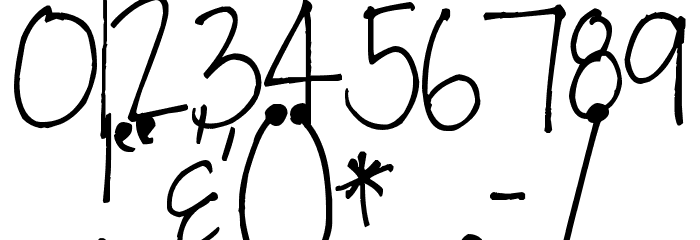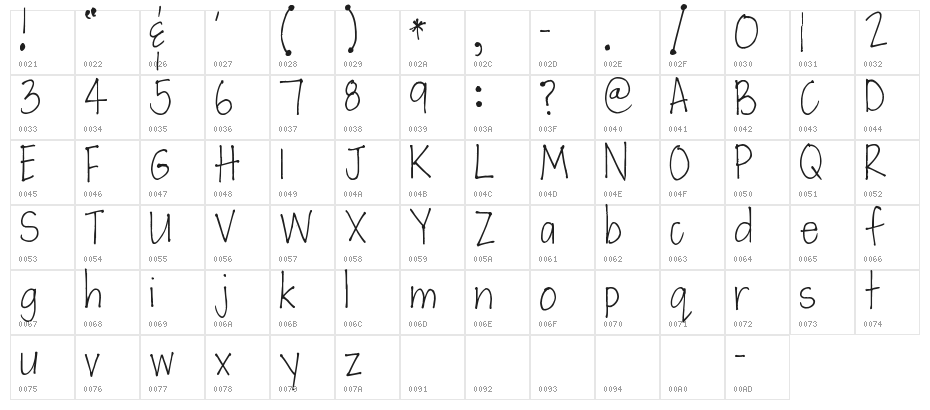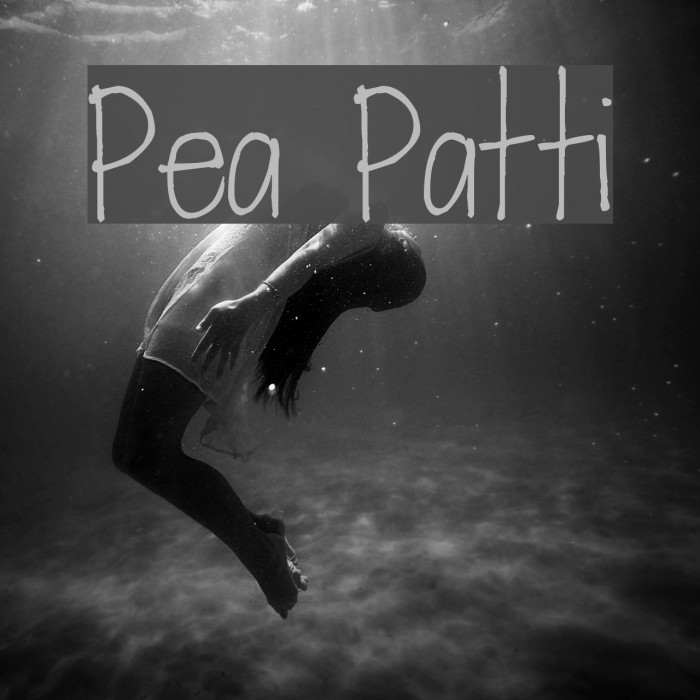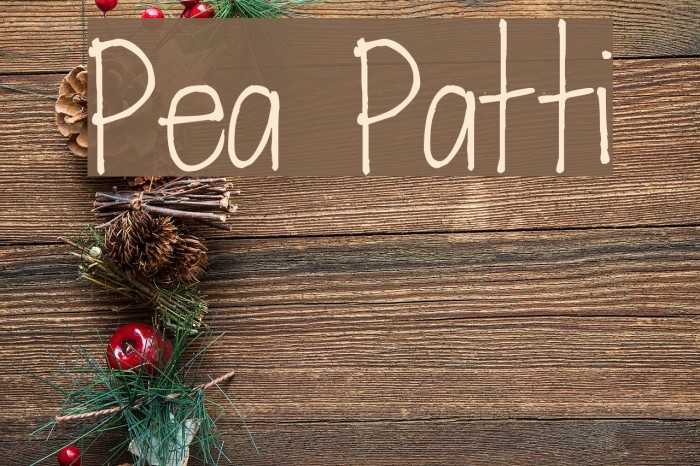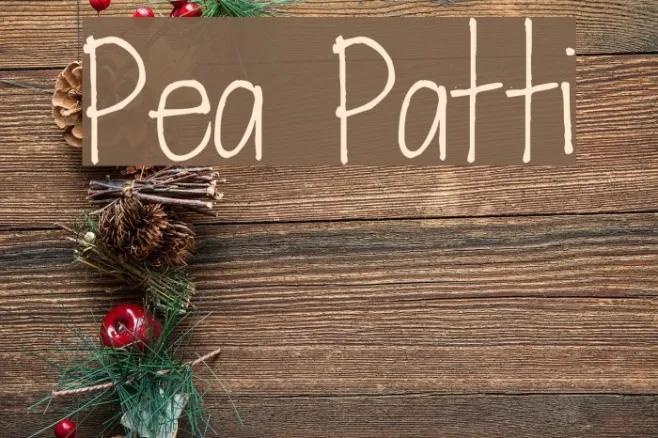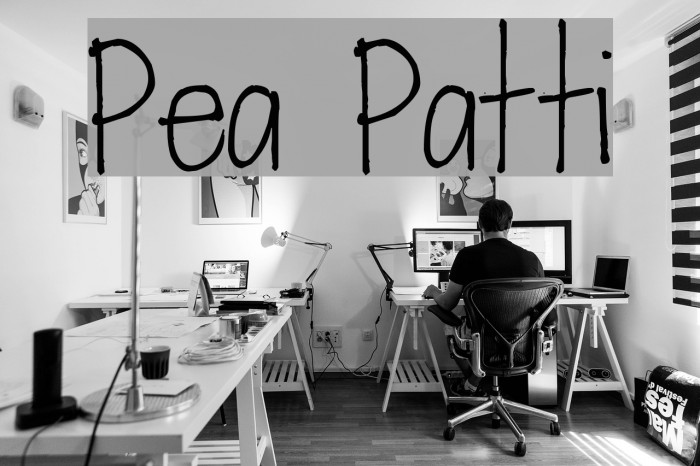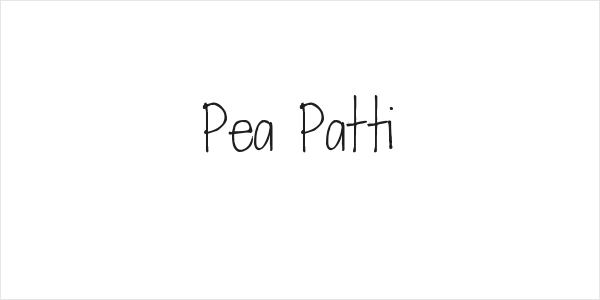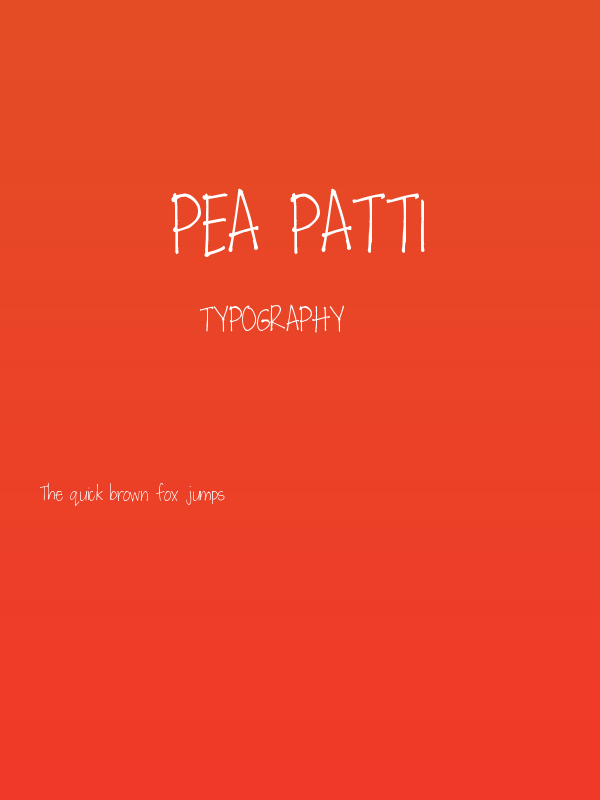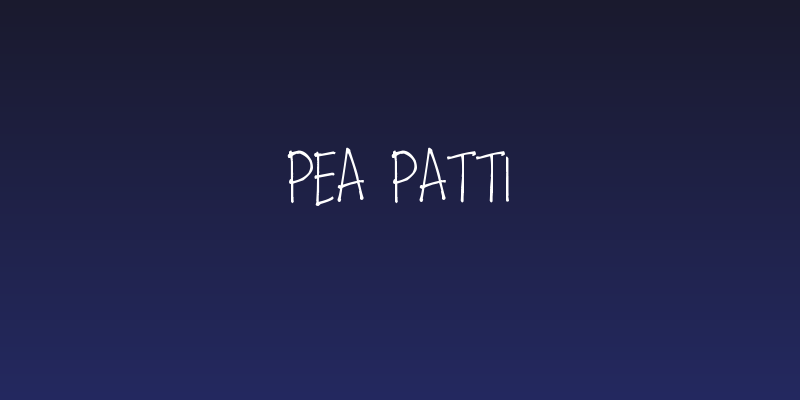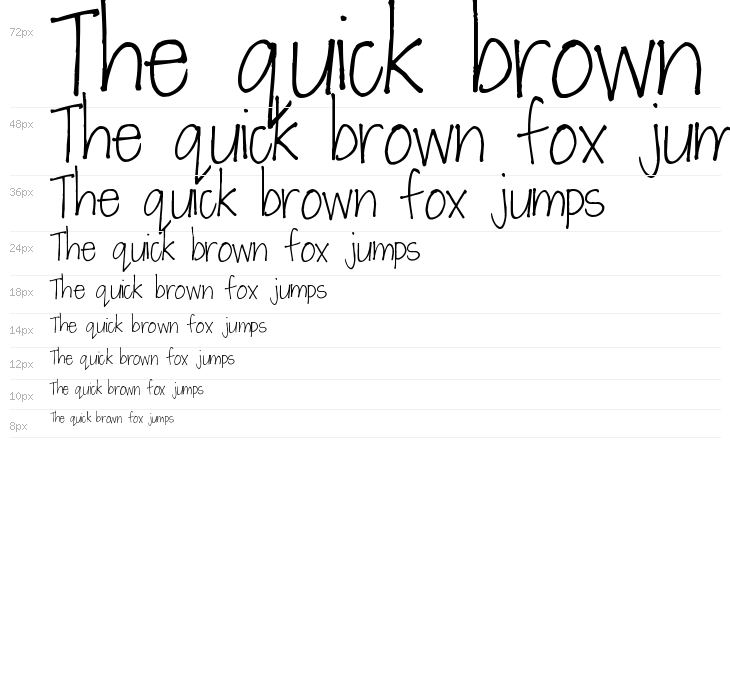
Pea Patti Font
Pea Patti Description
This font features a playful and casual handwritten style, characterized by its irregular and slightly whimsical letterforms. The strokes are uneven, giving it a natural and informal appearance. The uppercase letters are tall and narrow, while the lowercase letters maintain a consistent height, adding to the font's approachable feel. Numbers and special characters follow the same playful design, with some characters like the ampersand and question mark exhibiting unique, quirky shapes. This font exudes a sense of friendliness and creativity, making it ideal for projects that require a personal touch.